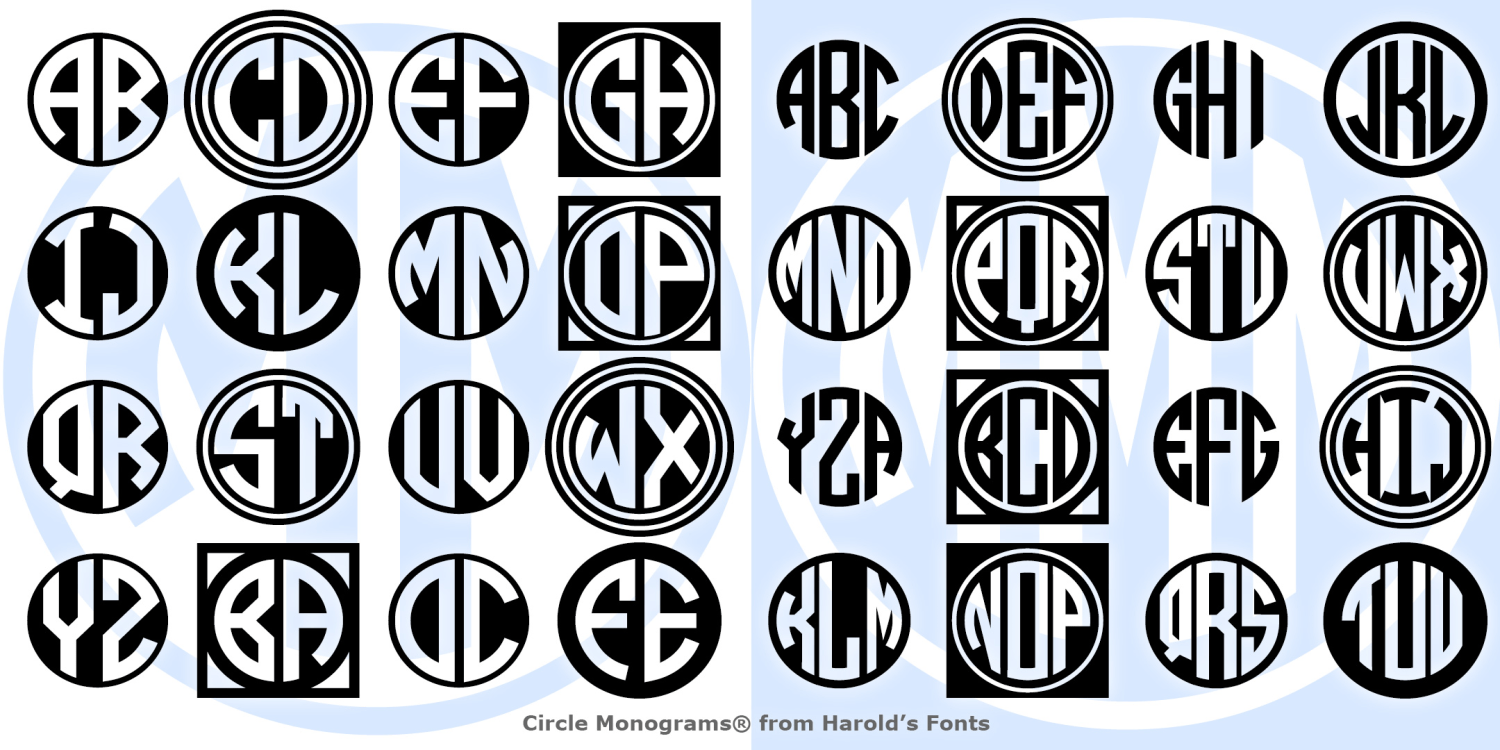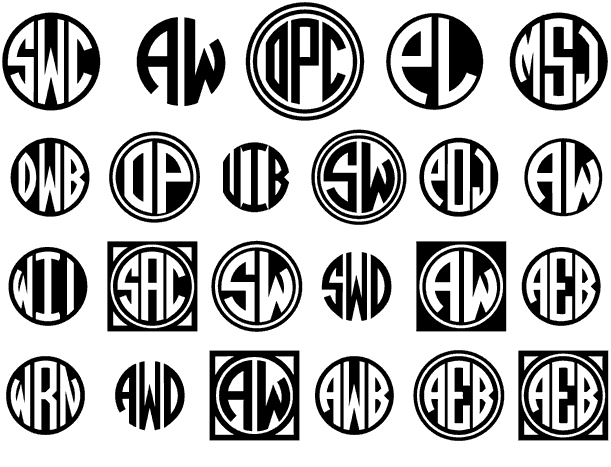
Circle Monograms
The set of four Circle Monograms fonts lets you create custom 2- and 3-letter monograms, against a black or white background, with a choice of decorative frames.